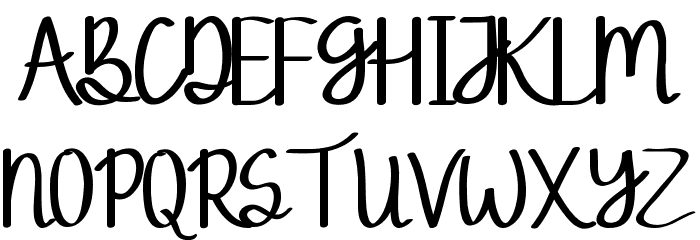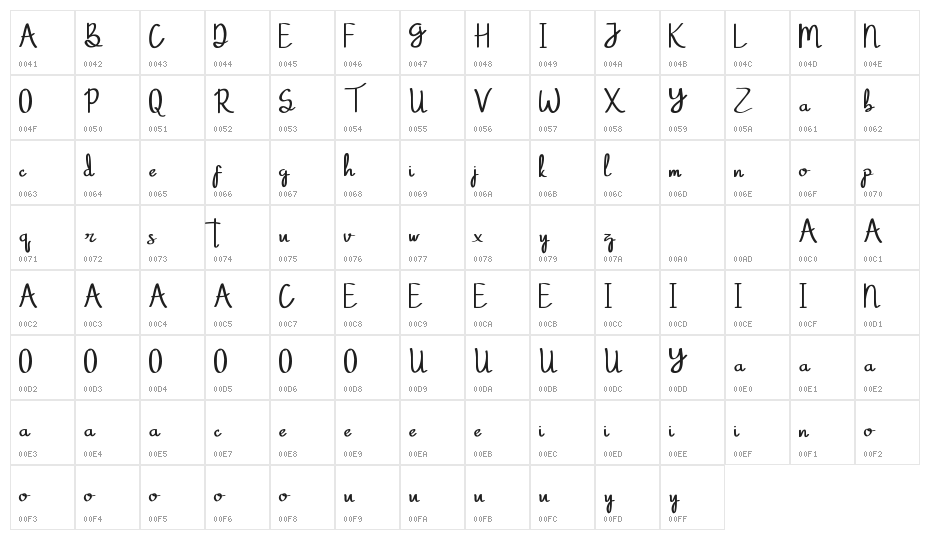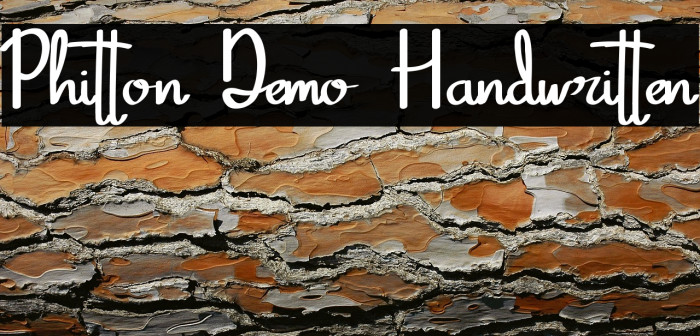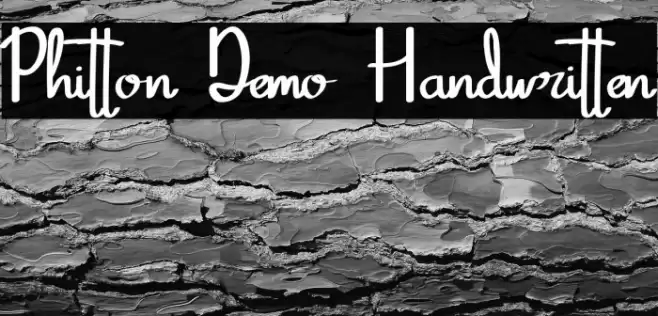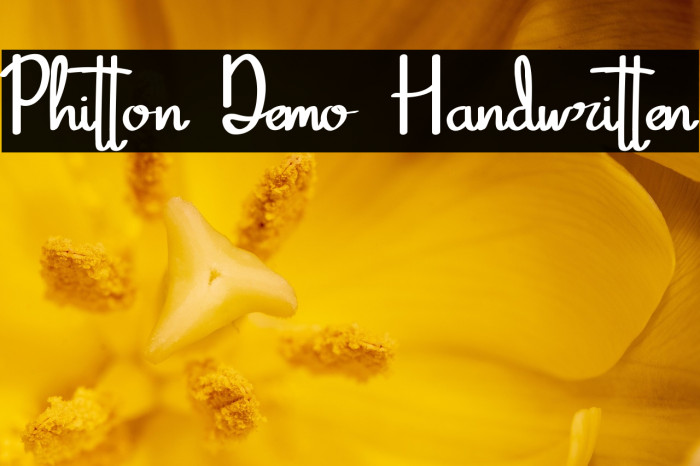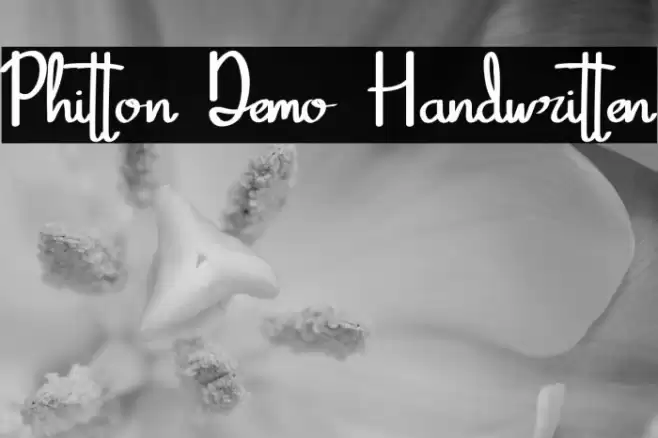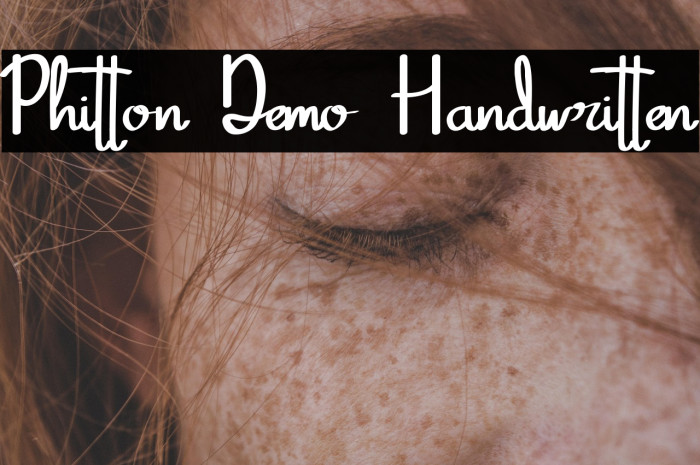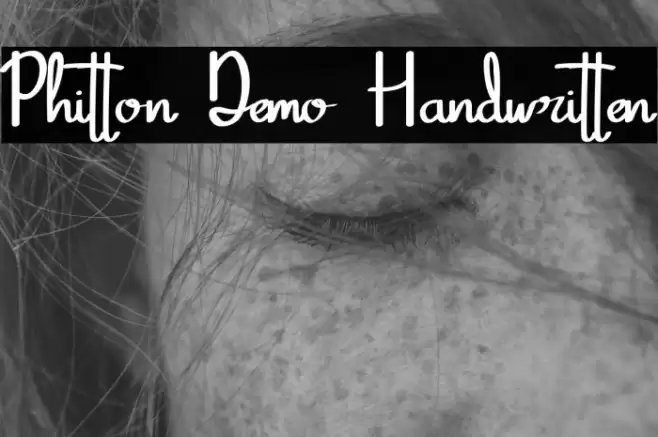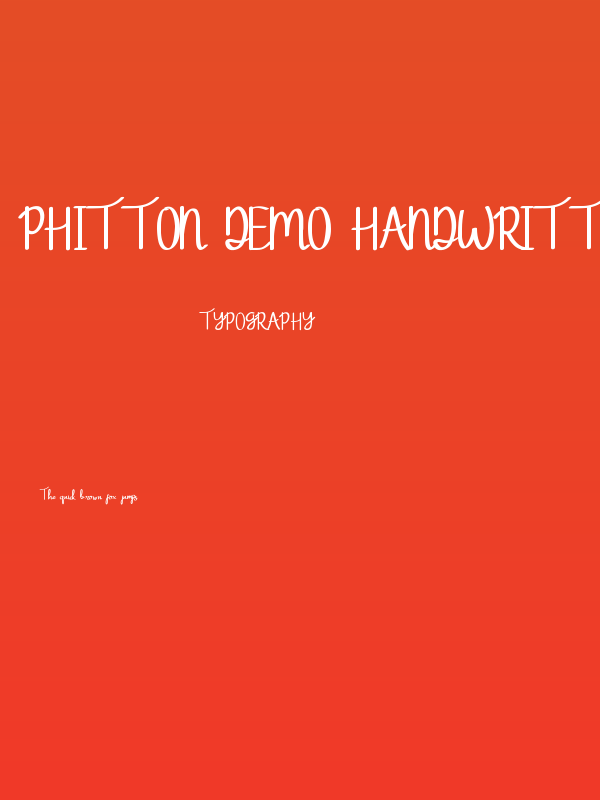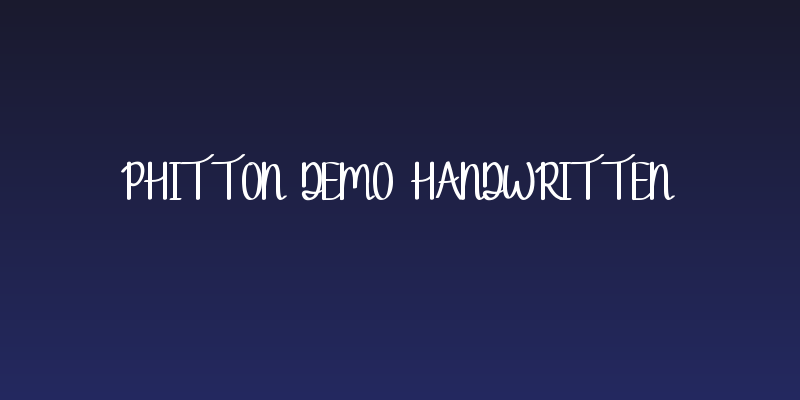
Phitton Demo Handwritten Font
Phitton Demo Handwritten Description
This font exudes a charming and playful handwritten style, characterized by its fluid and organic strokes. The uppercase letters are bold and expressive, with a slight slant that adds to their dynamic appearance. The lowercase letters maintain a consistent flow, with loops and curves that enhance the handwritten feel. The numbers and special characters are crafted with the same attention to detail, ensuring a cohesive look across all elements. This font is perfect for projects that require a personal touch, such as invitations, greeting cards, or branding materials that aim to convey warmth and creativity.
| Use Case | Logos, Headlines, Creative projects |
| Proposed Projects | Ideal for invitations, greeting cards, personal branding, and creative projects. |